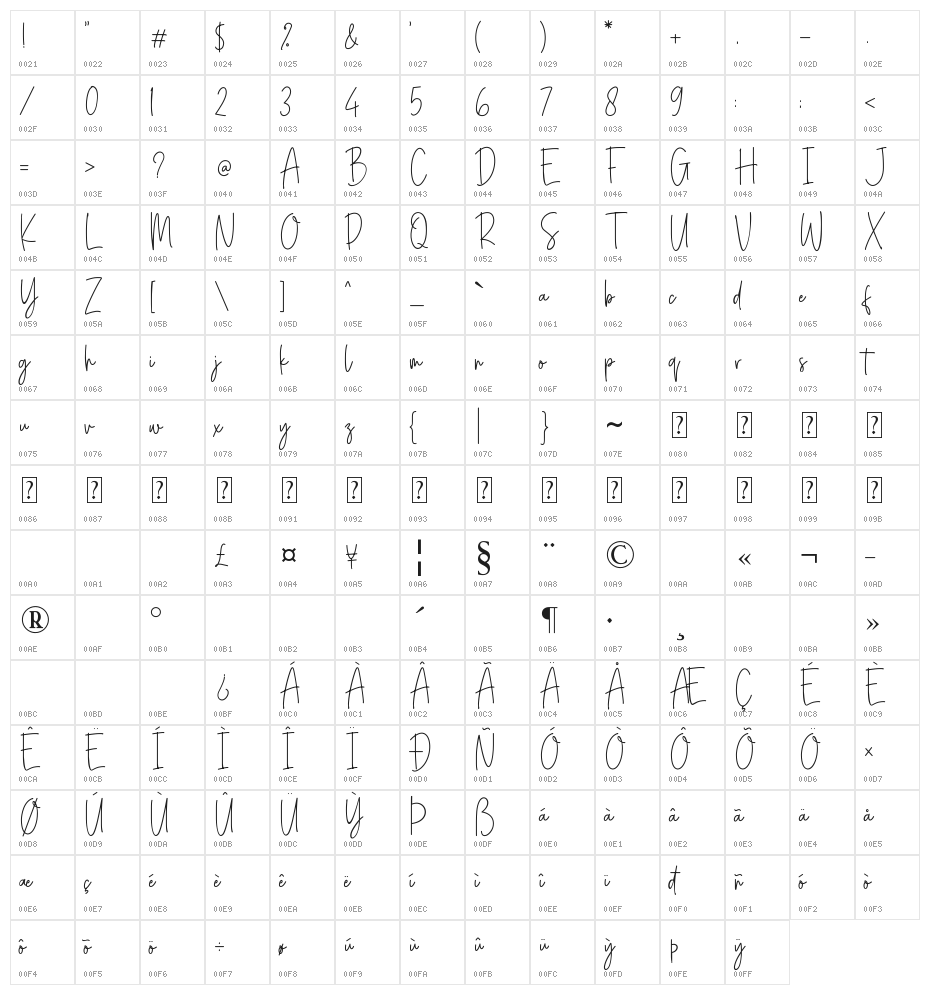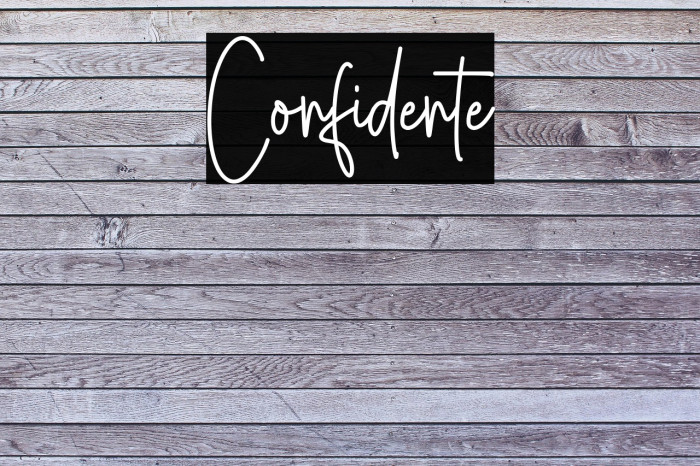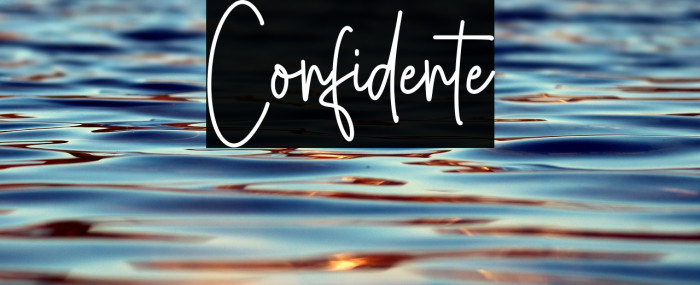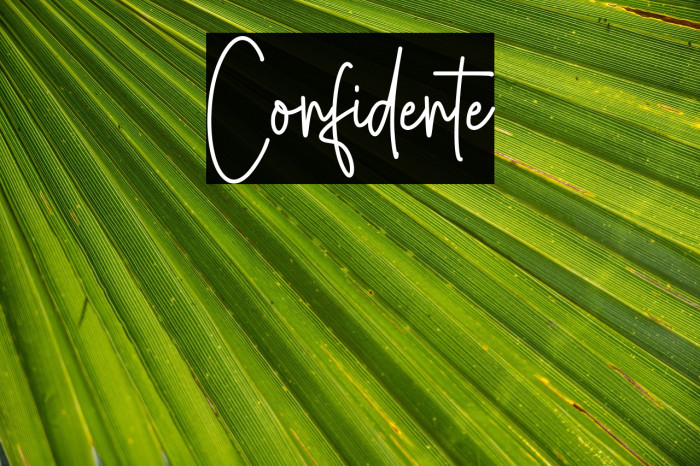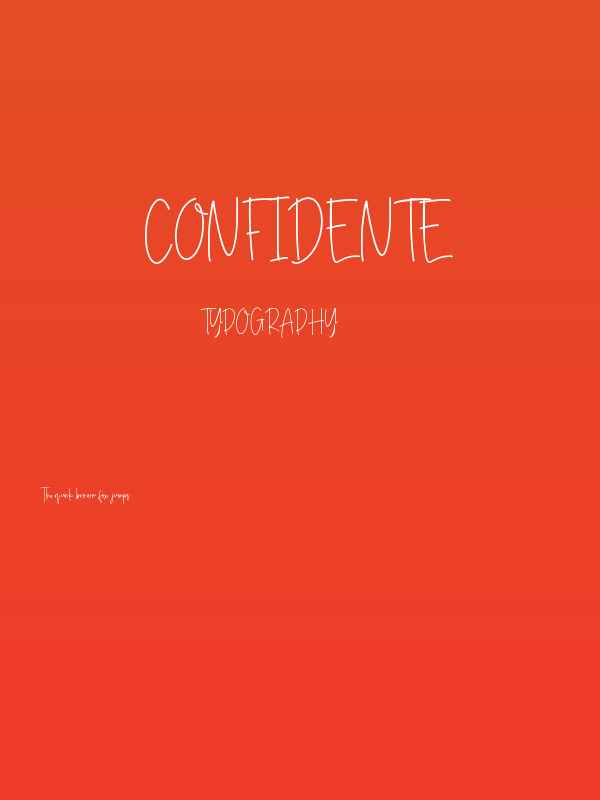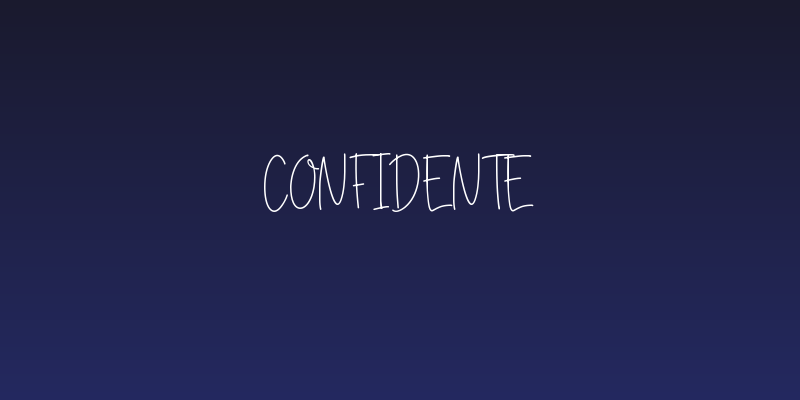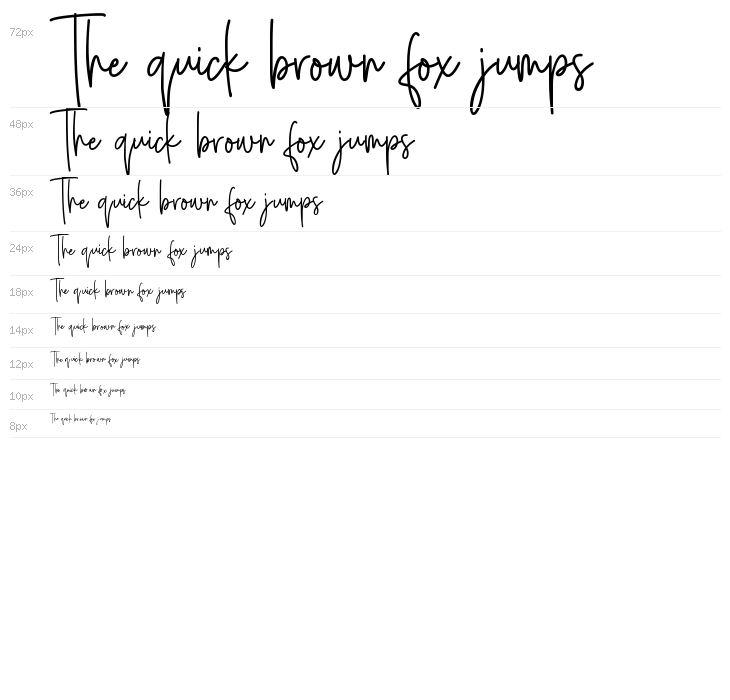
Confidente Font
Confidente Description
This font features a playful and casual handwritten style, characterized by its tall, narrow letterforms and slightly irregular strokes. The uppercase letters are elongated with a whimsical touch, while the lowercase letters maintain a consistent flow, adding to the font's informal charm. The numerals are clear and legible, matching the overall aesthetic. Special characters are included, enhancing its versatility. The font's unique personality makes it suitable for creative projects that require a personal and approachable feel.
| Use Case | Logos, Headlines, Informal Text |
| Proposed Projects | Ideal for greeting cards, invitations, personal branding, and social media graphics. |